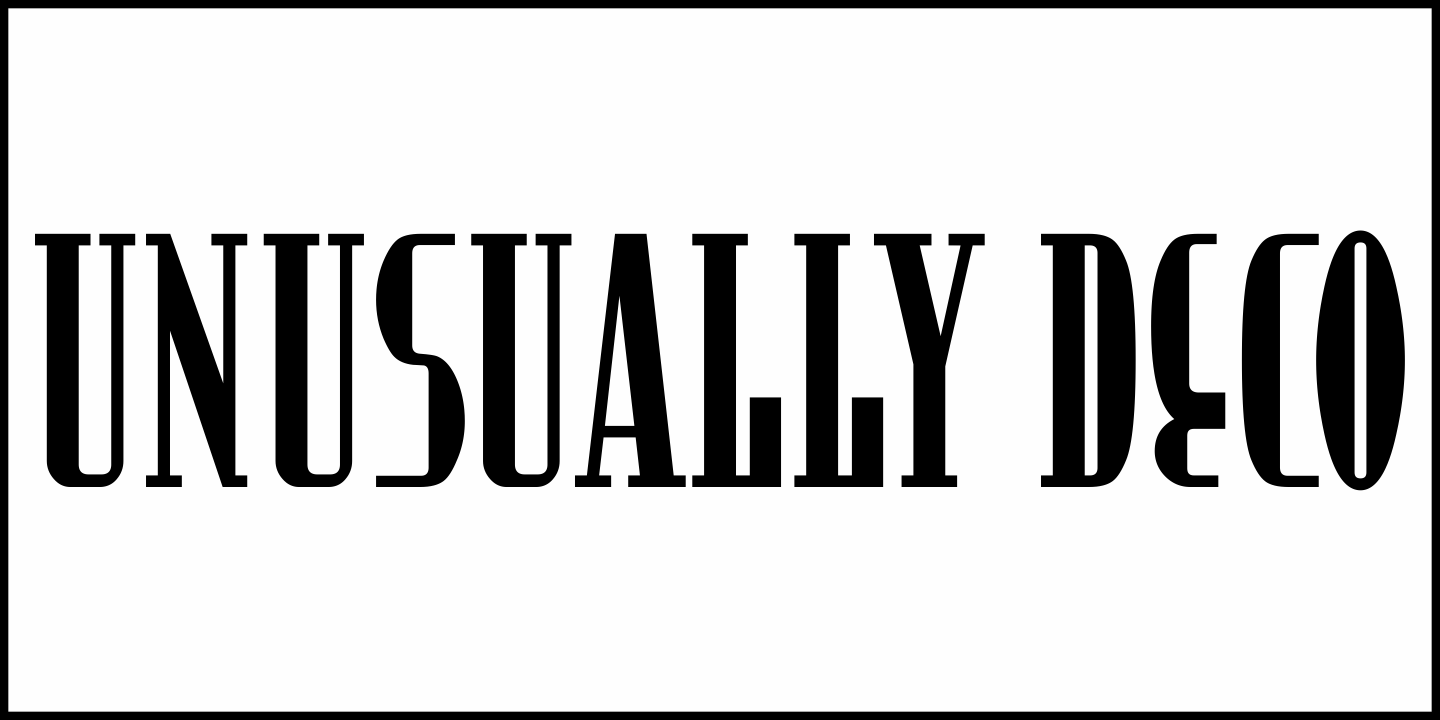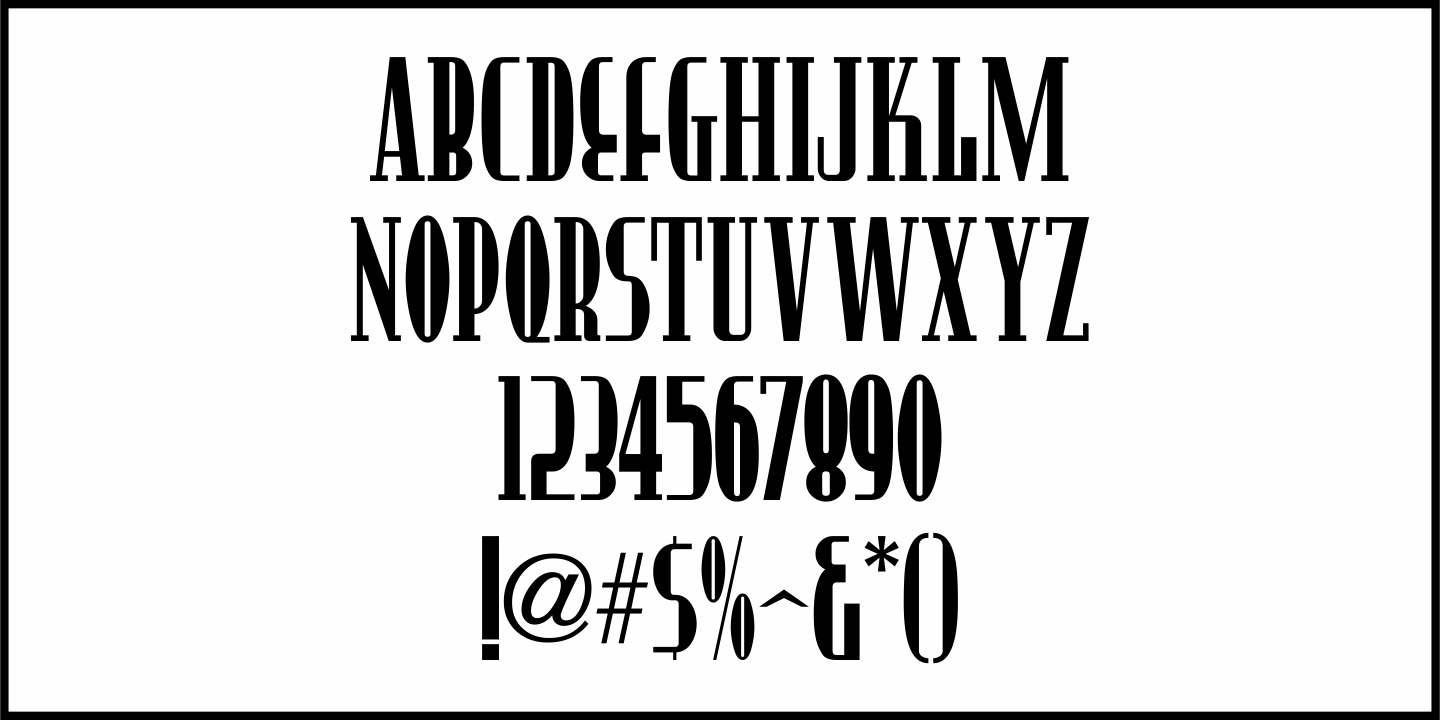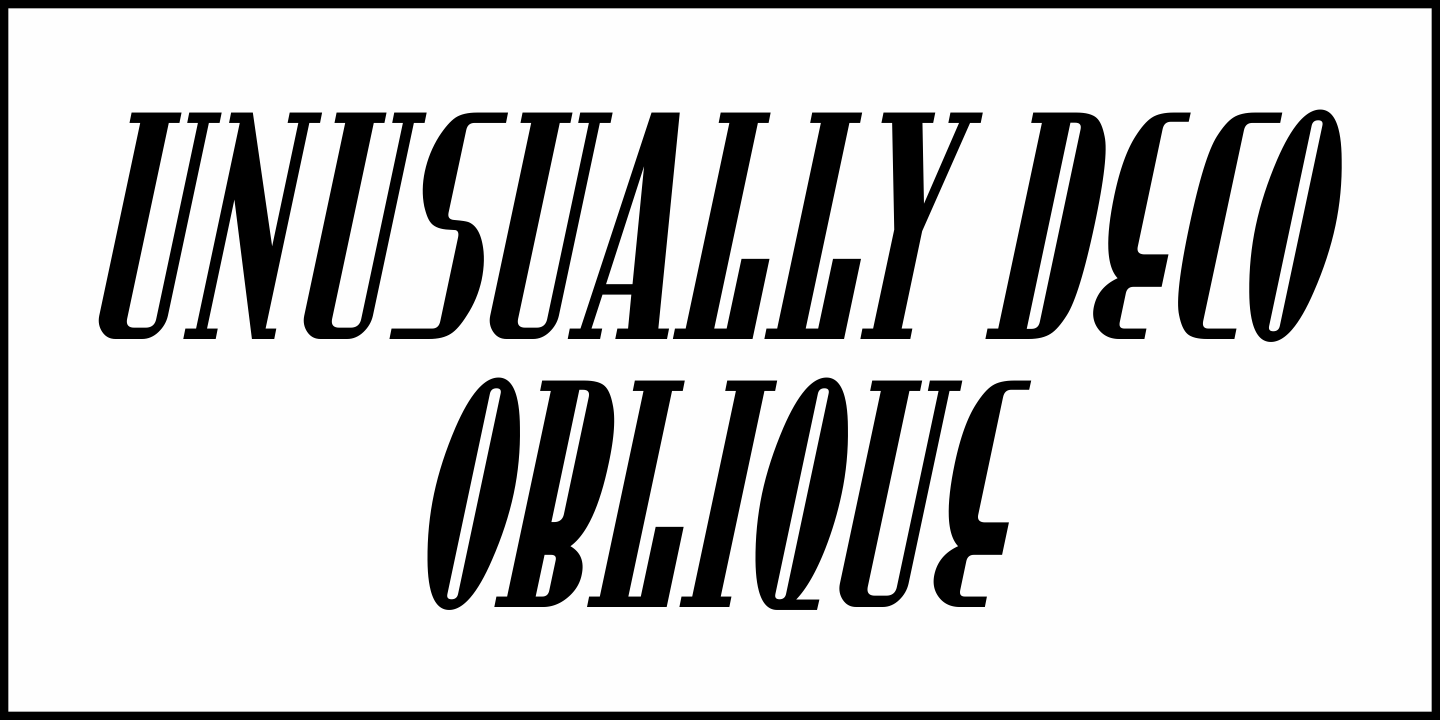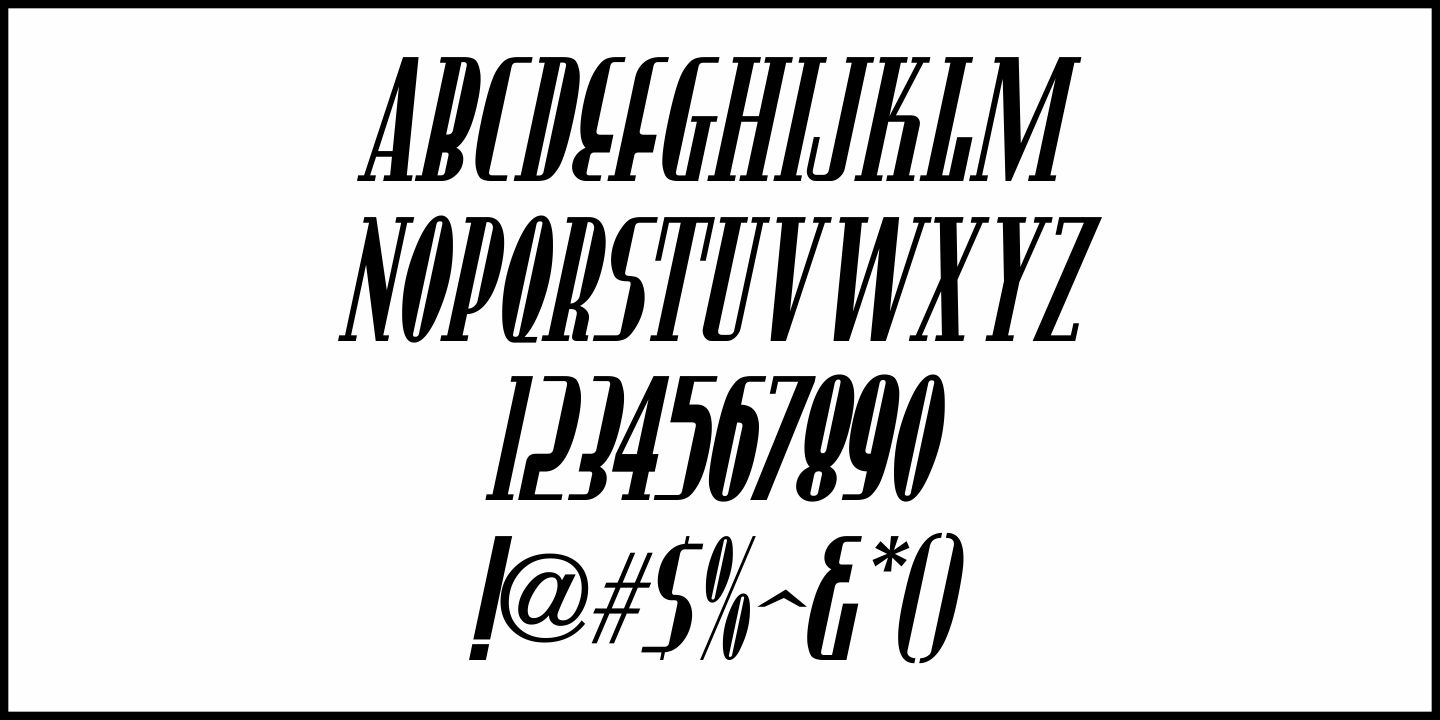
Unusually Deco
The hand lettered words 'Pere Noel' under a vintage French magazine's photo of Santa with two bikini-clad beauties inspired the digital version of this quirky, condensed type style.
Unusually Deco JNL is available in both regular and oblique versions